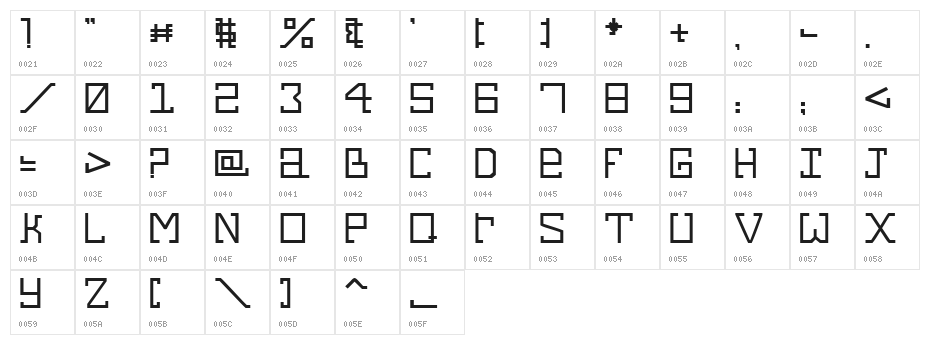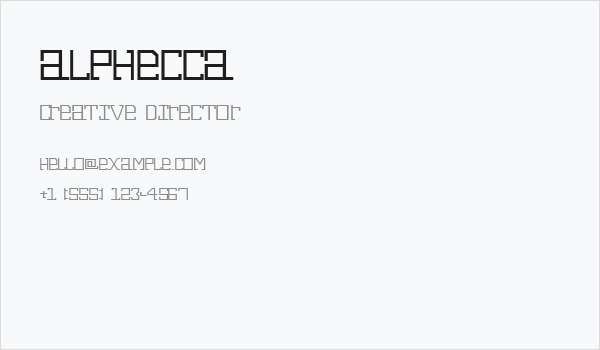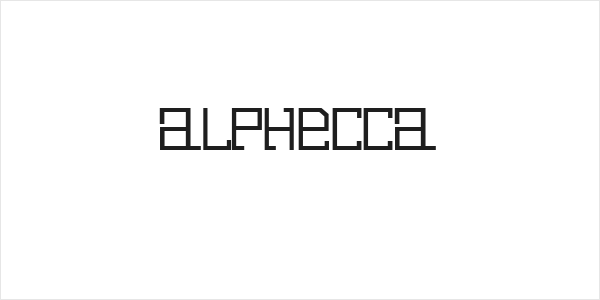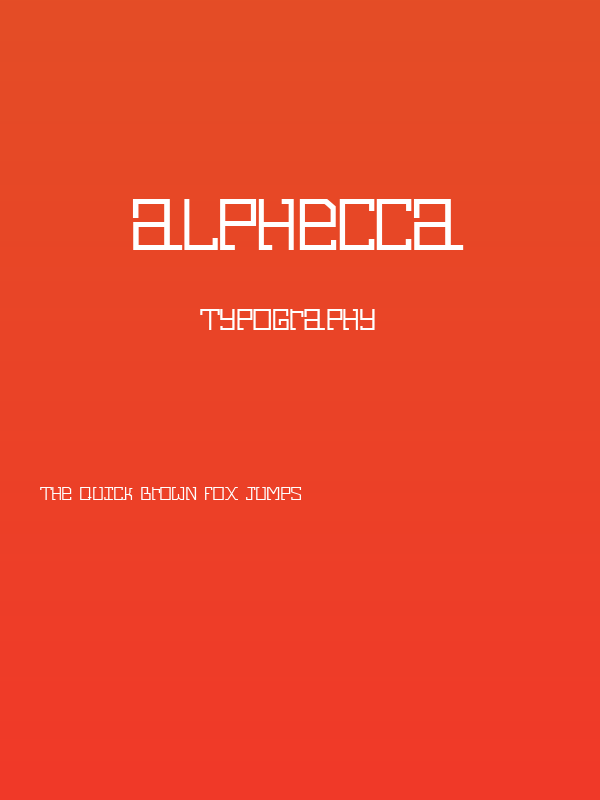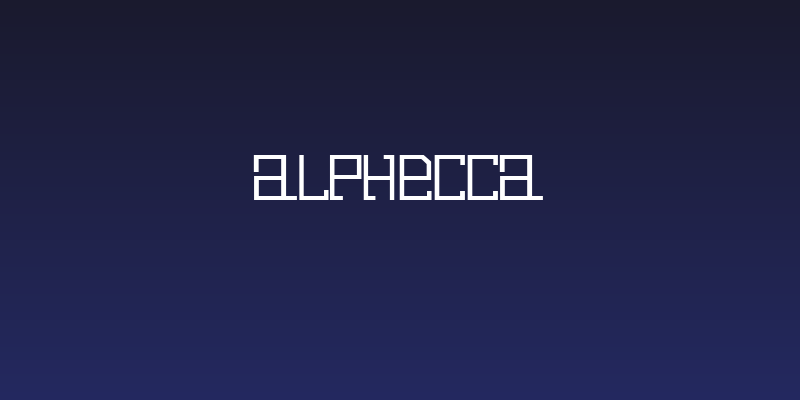
Alphecca Font
Alphecca Description
This font features a geometric and angular design, characterized by its sharp edges and straight lines. The characters are constructed with a consistent stroke width, giving it a uniform appearance. The uppercase letters are bold and prominent, while the lowercase letters maintain the same structural integrity. The numerals and special characters follow the same design principles, ensuring a cohesive look across all elements. This font's distinct style makes it stand out, offering a modern and futuristic aesthetic that is both eye-catching and versatile.
| Proposed Projects | Ideal for technology branding, futuristic posters, video game titles, and digital media. |